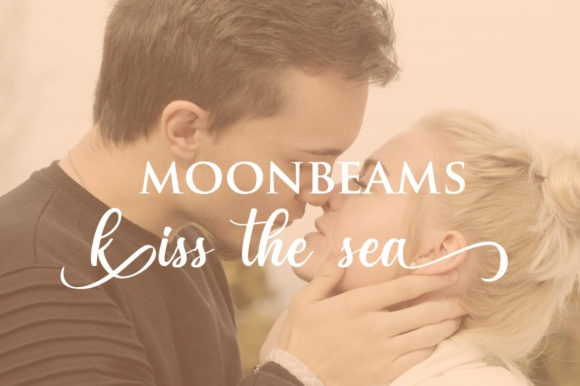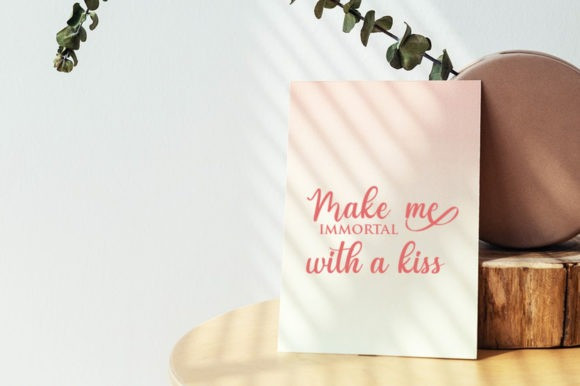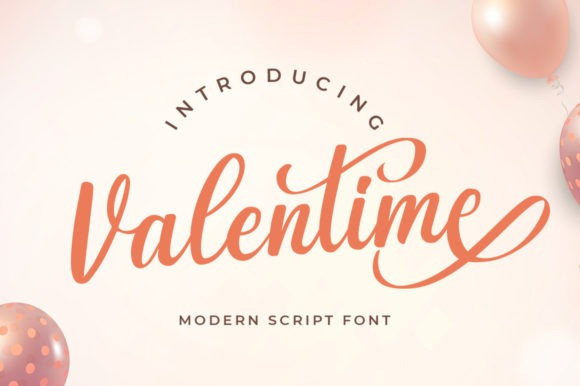
Valentime Script Font
Valentime is a beautiful handwritten font, featuring a lovely flow. Not too thin and not too thick, balanced and varied, this font was designed to enhance the beauty of your projects.